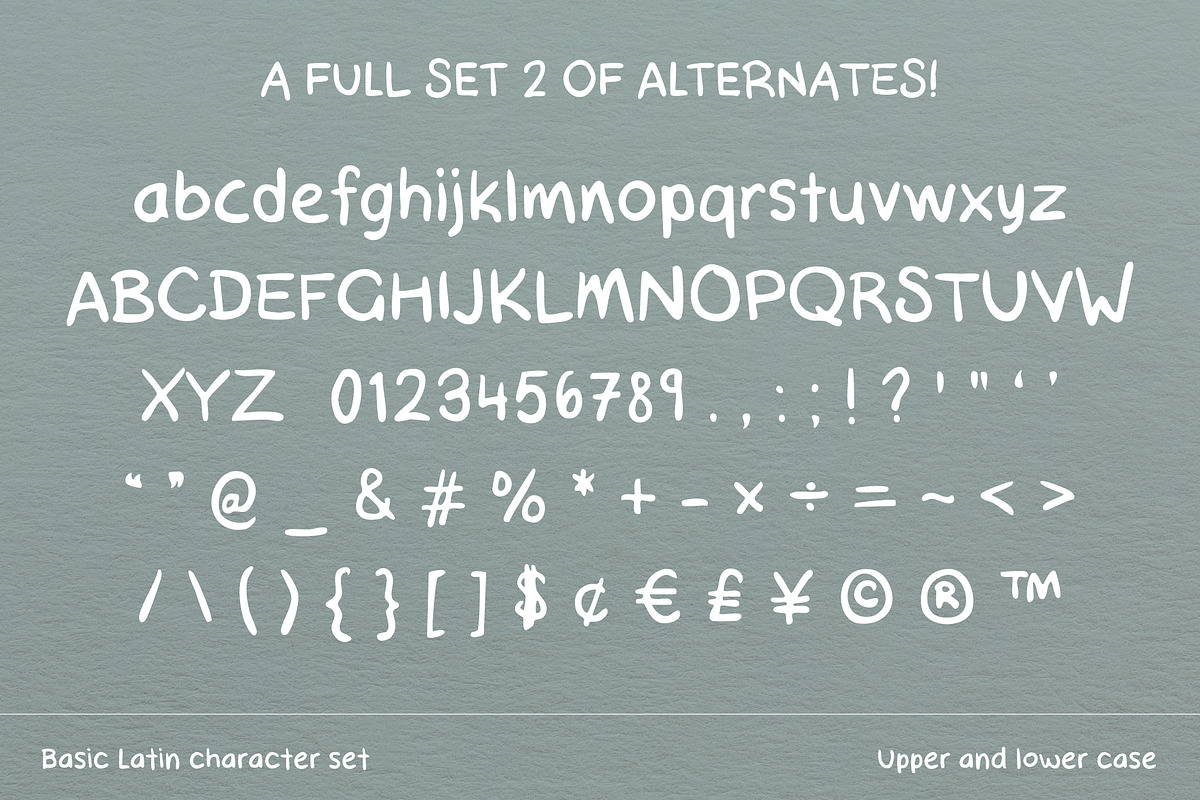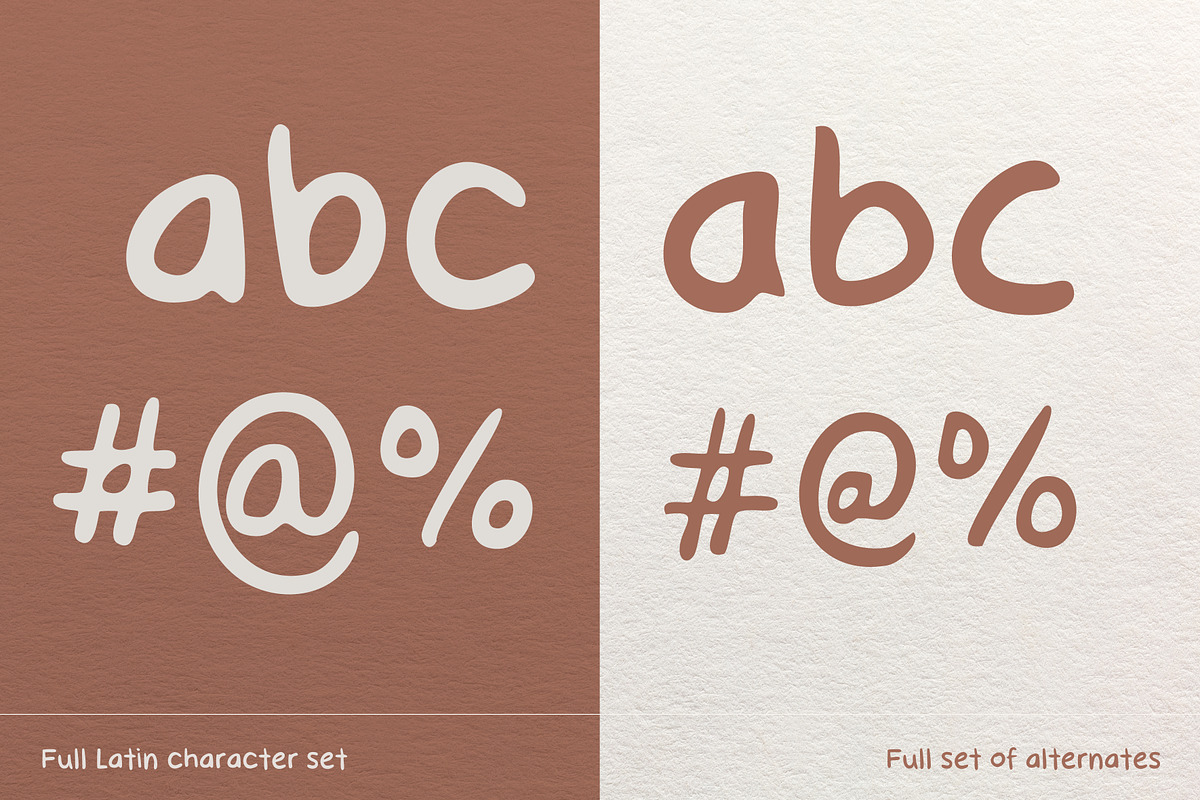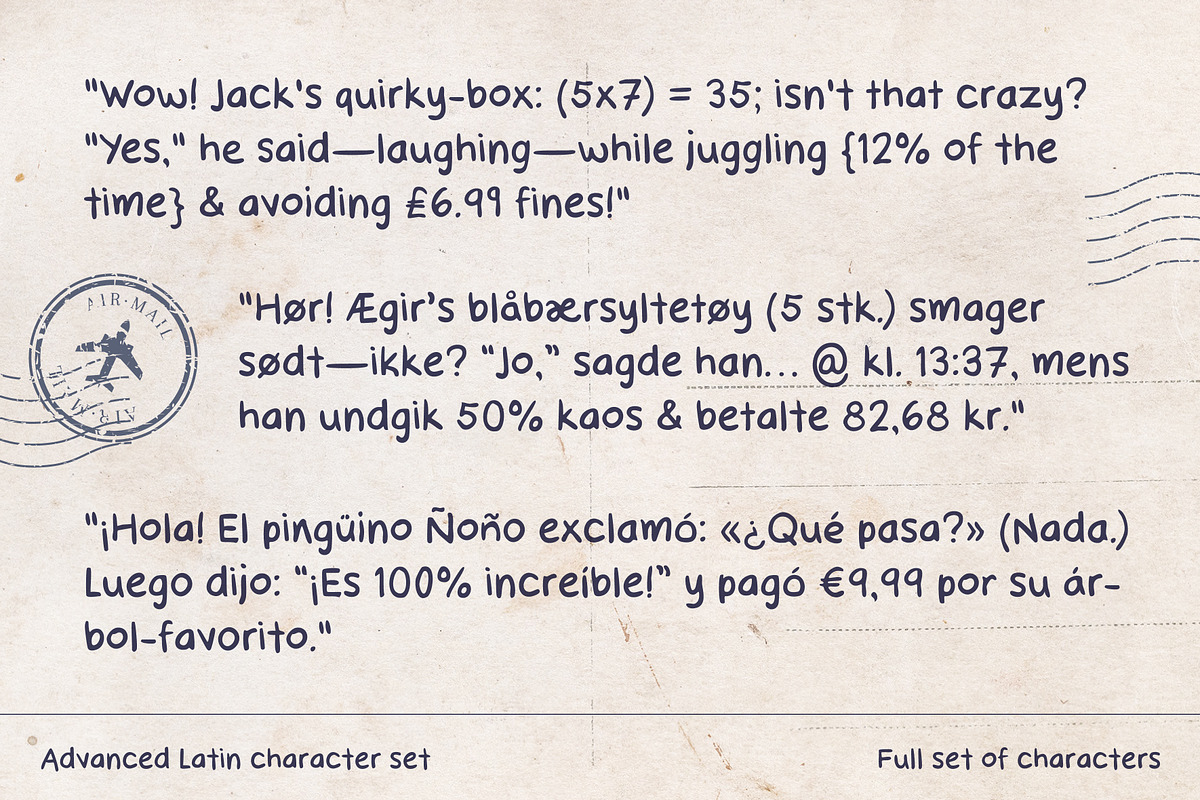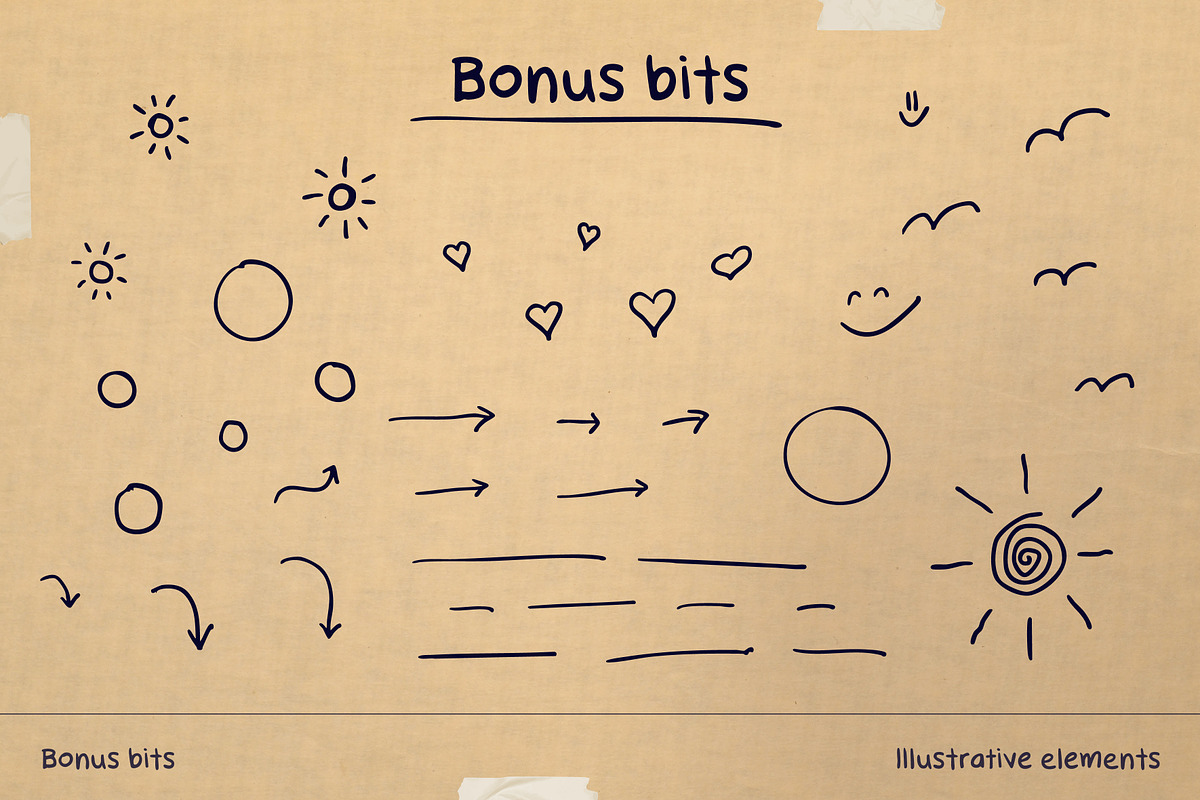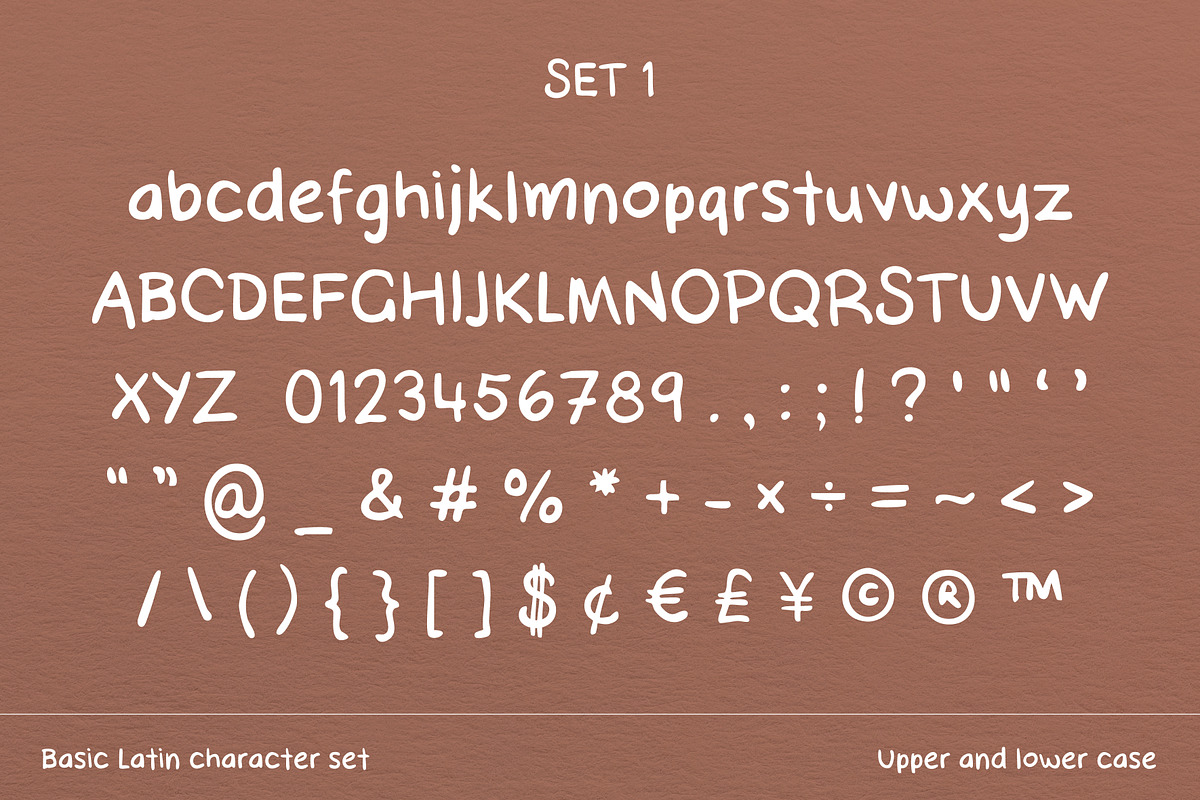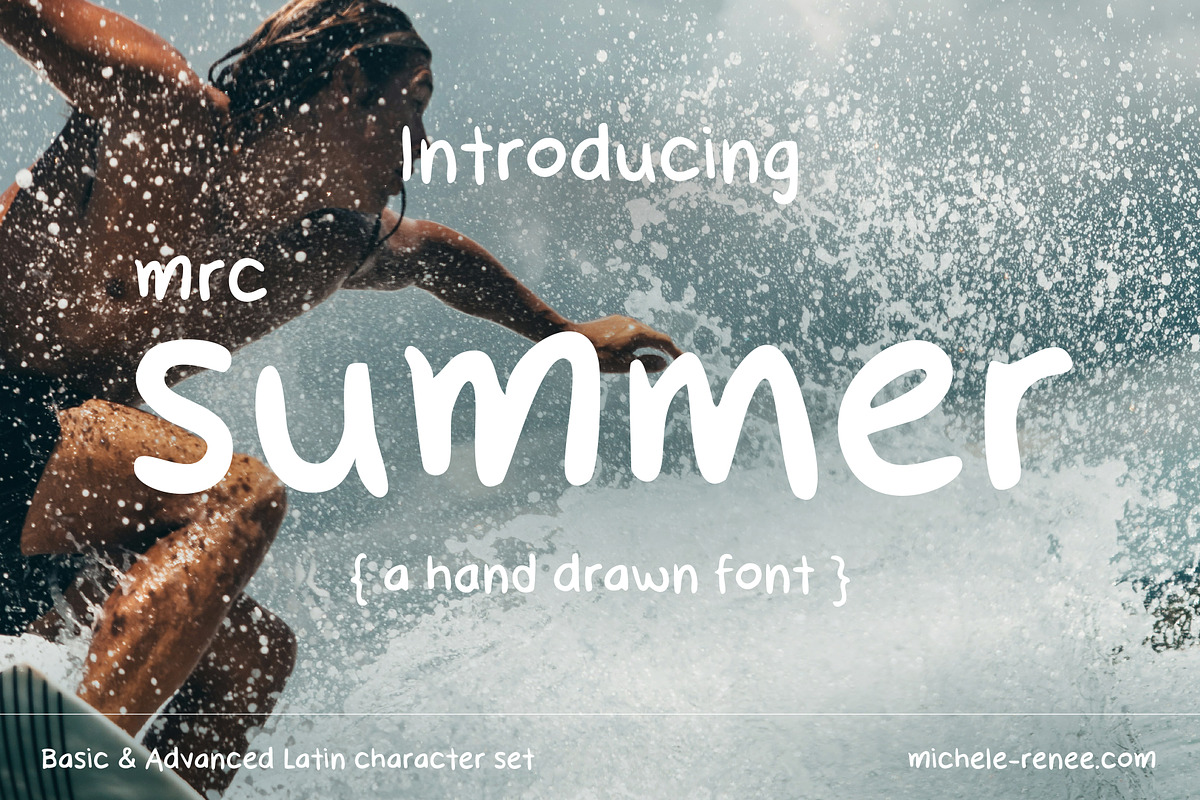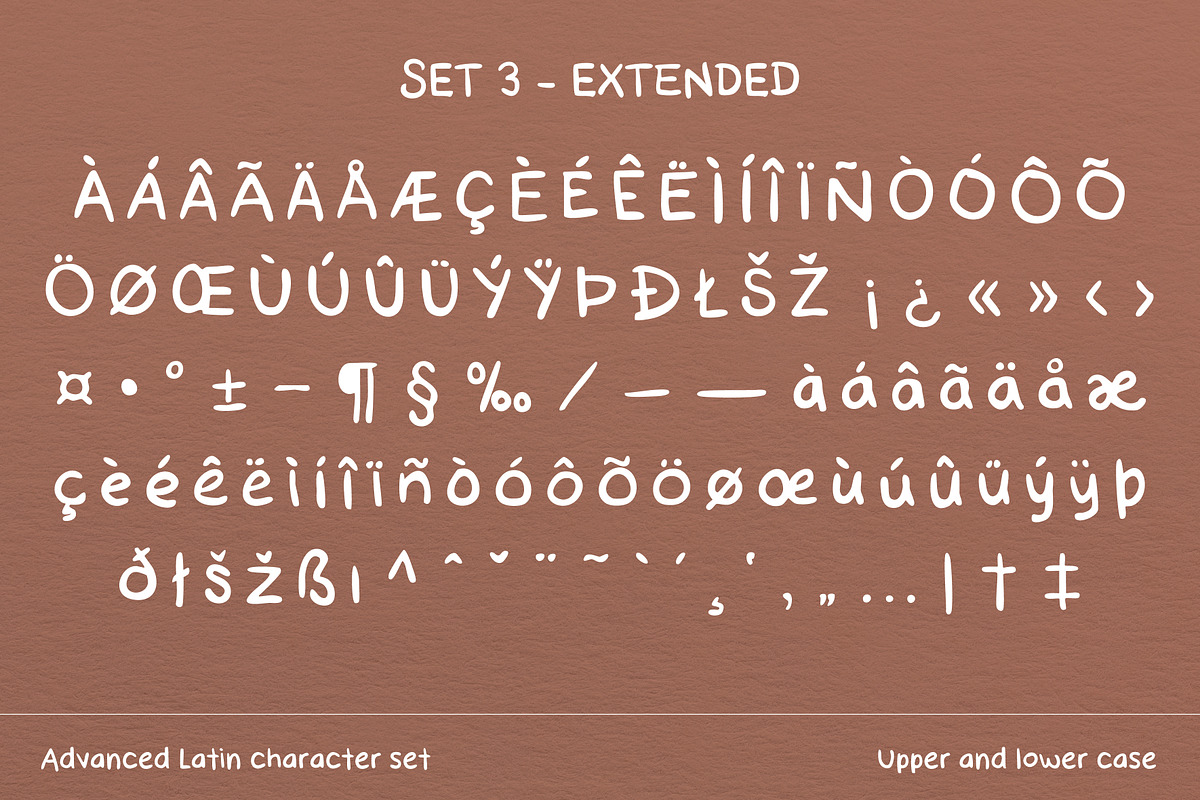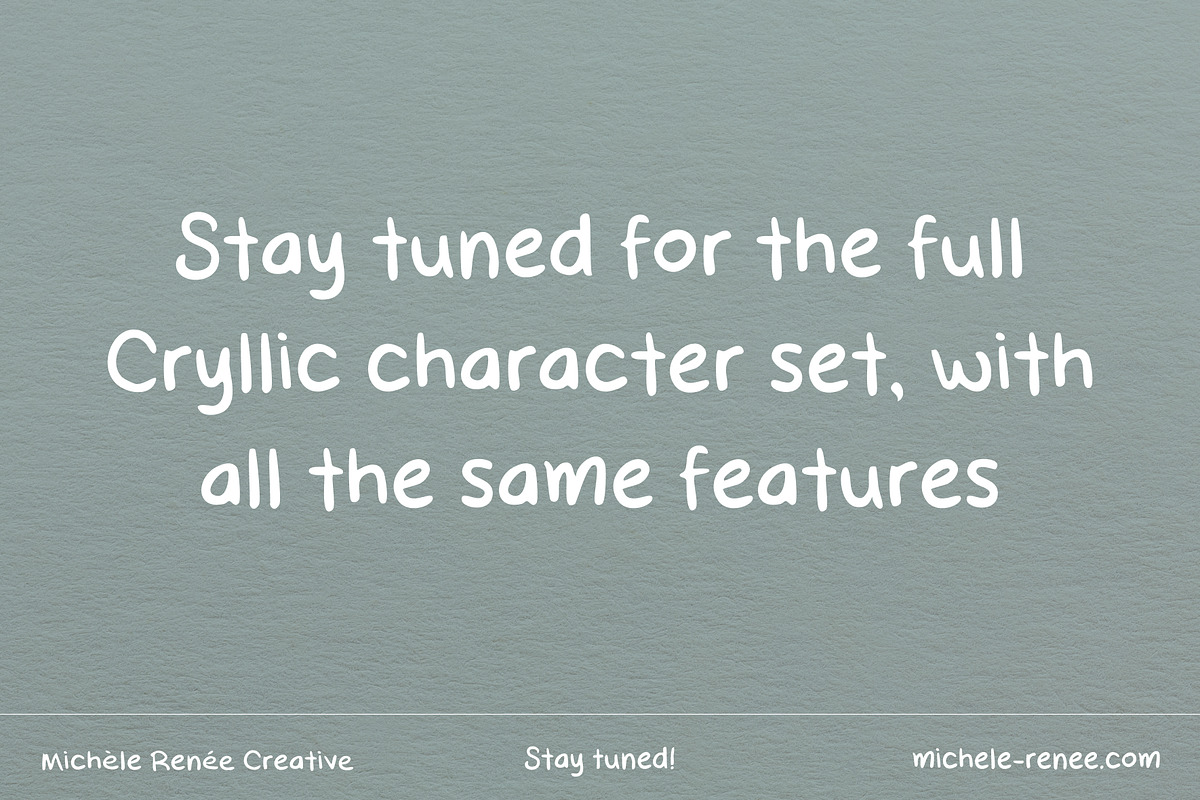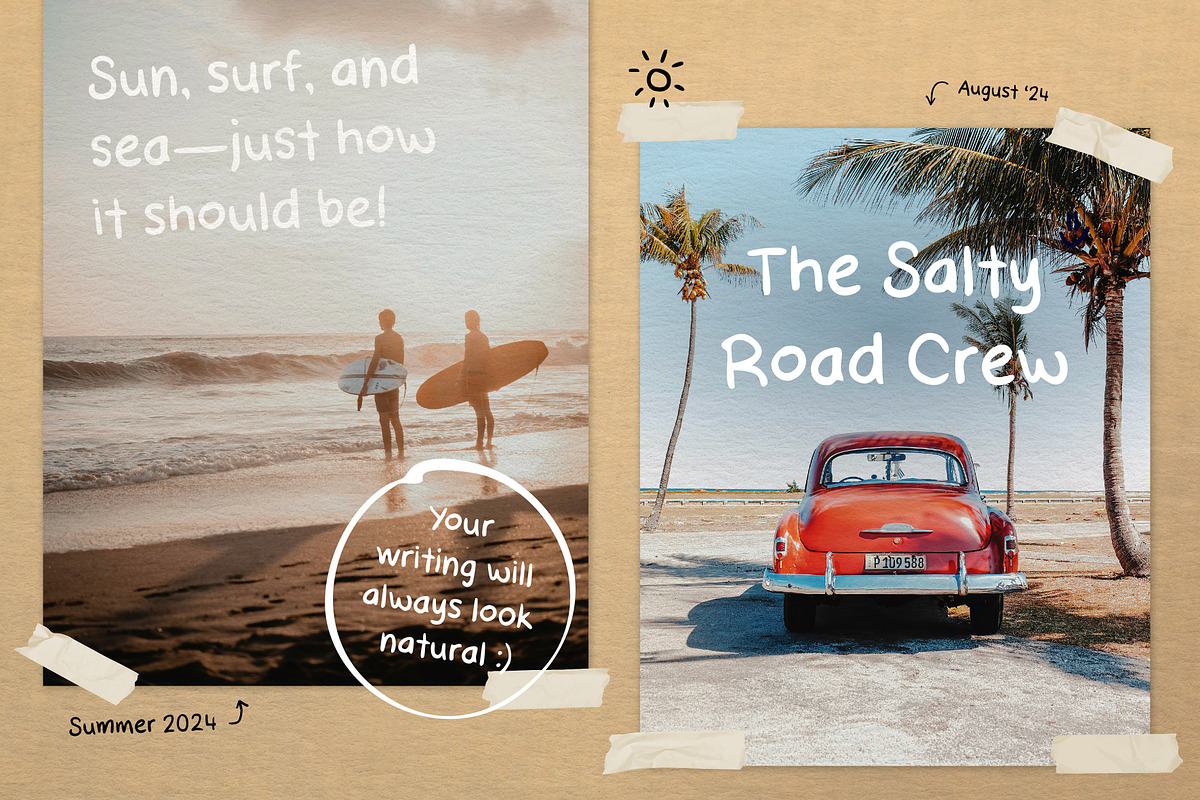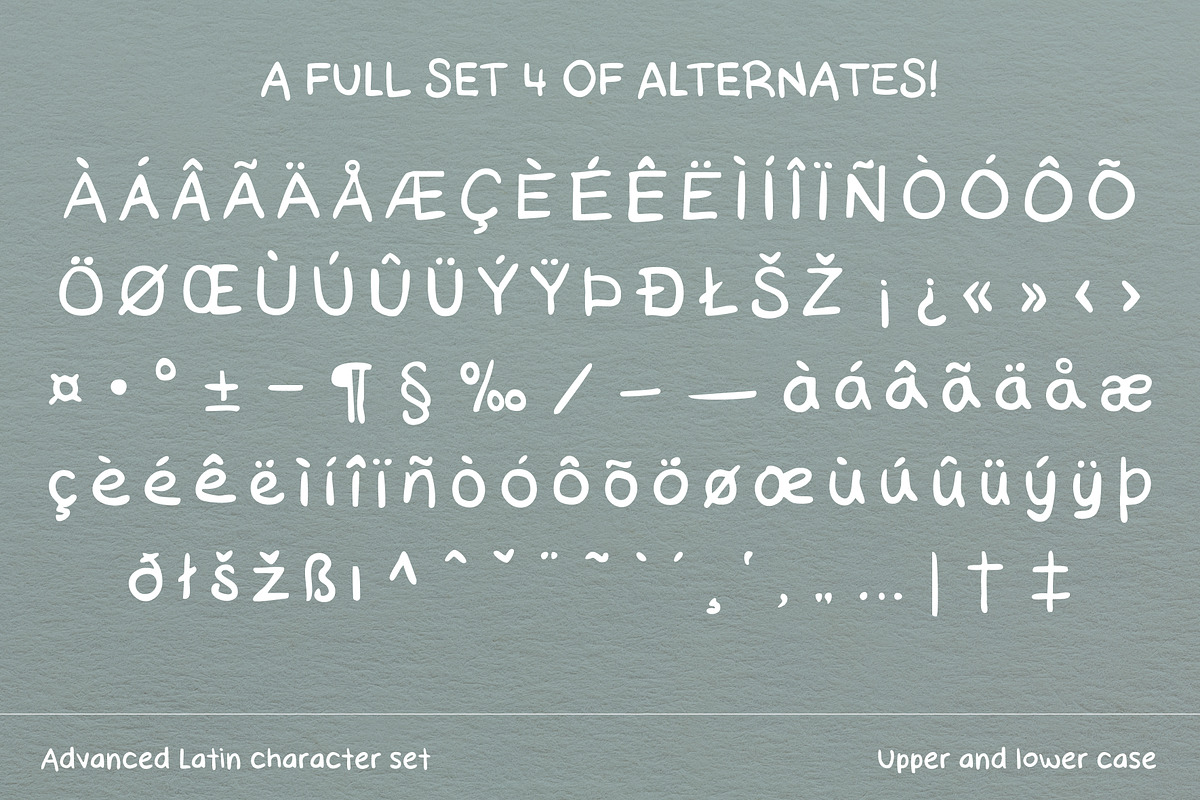
MRC Summer
Introducing MRC Summer - a fun, laid-back font that gives you that warm and fuzzy feeling when you think of those sunny days by the beach. Designed to give your project that authentic, handwritten look without all the hard work! The font has a complete set of alternatives for every letter, punctuation and mark - making sure your writing can always look natural, and is perfect for adding that personal touch to your designs.
- Full uppercase and lowercase Basic and Advanced Latin character sets with alternates for each and every glyph: Tons of creative options to give your work a unique, handwritten vibe!
- Supports 30+ languages: So you can use it in SO many places (watch out for the extended version of MRC Summer, which will include even more letters, including a Cyrillic set - coming soon!)
- Handcrafted with love: Designed from scratch to be truly original and full of character.
- Perfect for any project: Whether it’s branding, logos, packaging, posters, social media, or more—this font’s got you covered!
MRC Summer supports over 30 languages, including:
- English, French, Spanish, Portuguese, Italian, German, Dutch
- Scandinavian languages (Danish, Norwegian, Swedish, Icelandic, Finnish)
- Central & Eastern European languages (Polish, Czech, Slovak, Slovenian, Croatian, Bosnian, Hungarian, Romanian, Lithuanian, Latvian, Estonian)
- Other languages (Turkish, Albanian, Basque, Catalan, Galician, Welsh, Irish, Maltese)